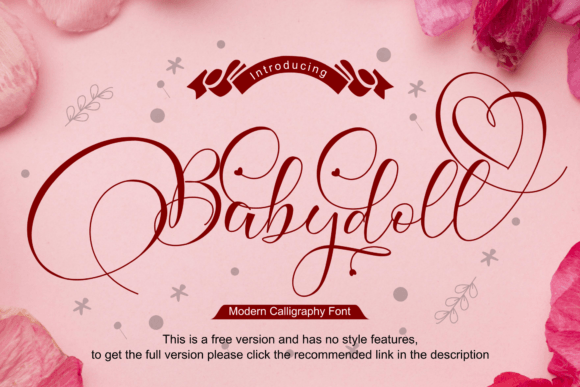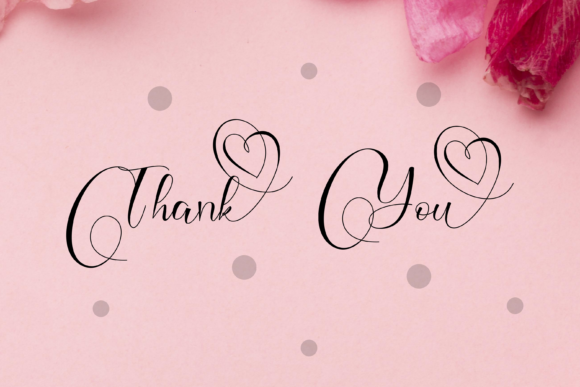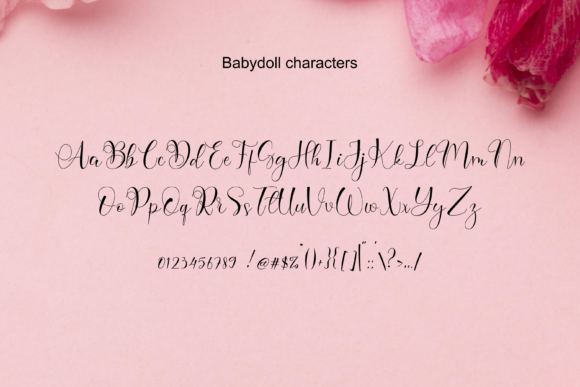
Babydoll Font
Babydoll is a romantic and sweet handwritten font with characters and alternates that seem to dance along the baseline. It will add a luxurious spark to any design or project that you wish to create!